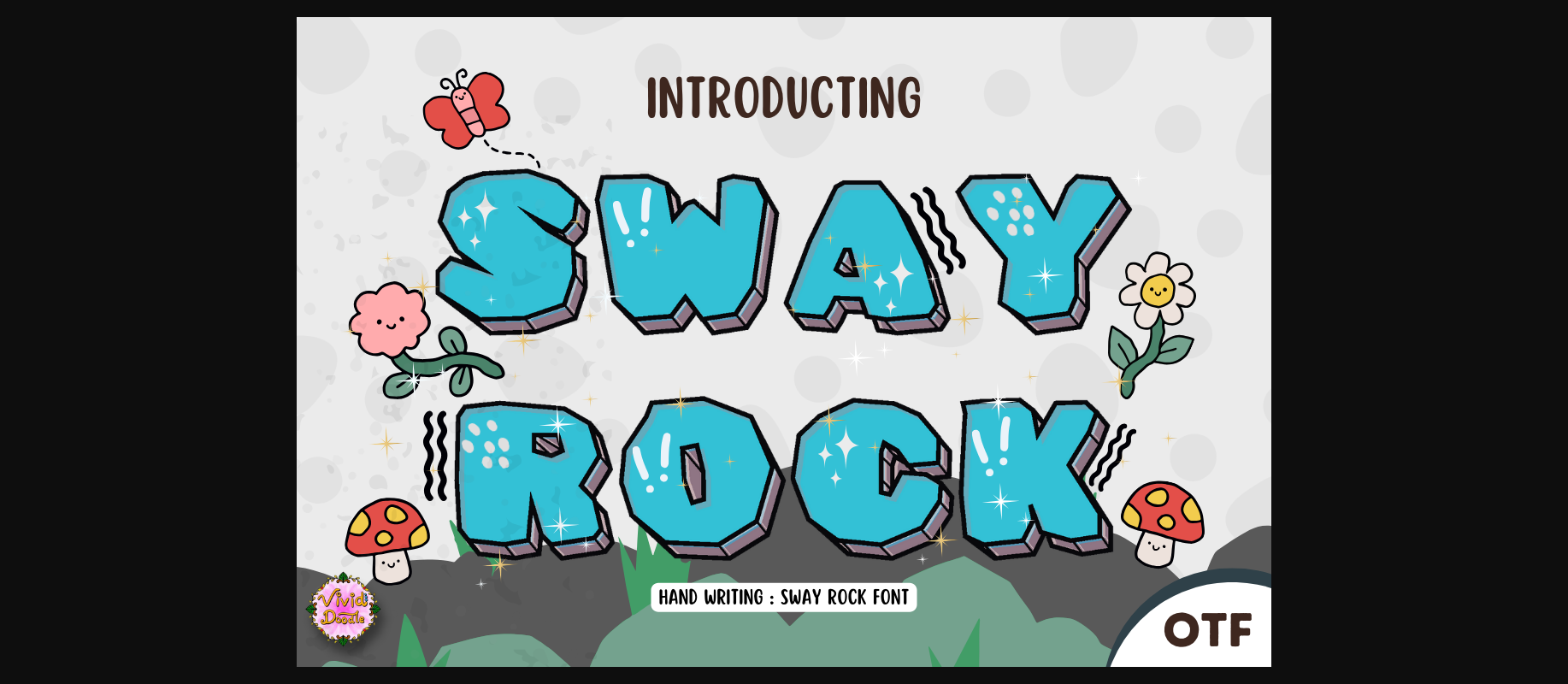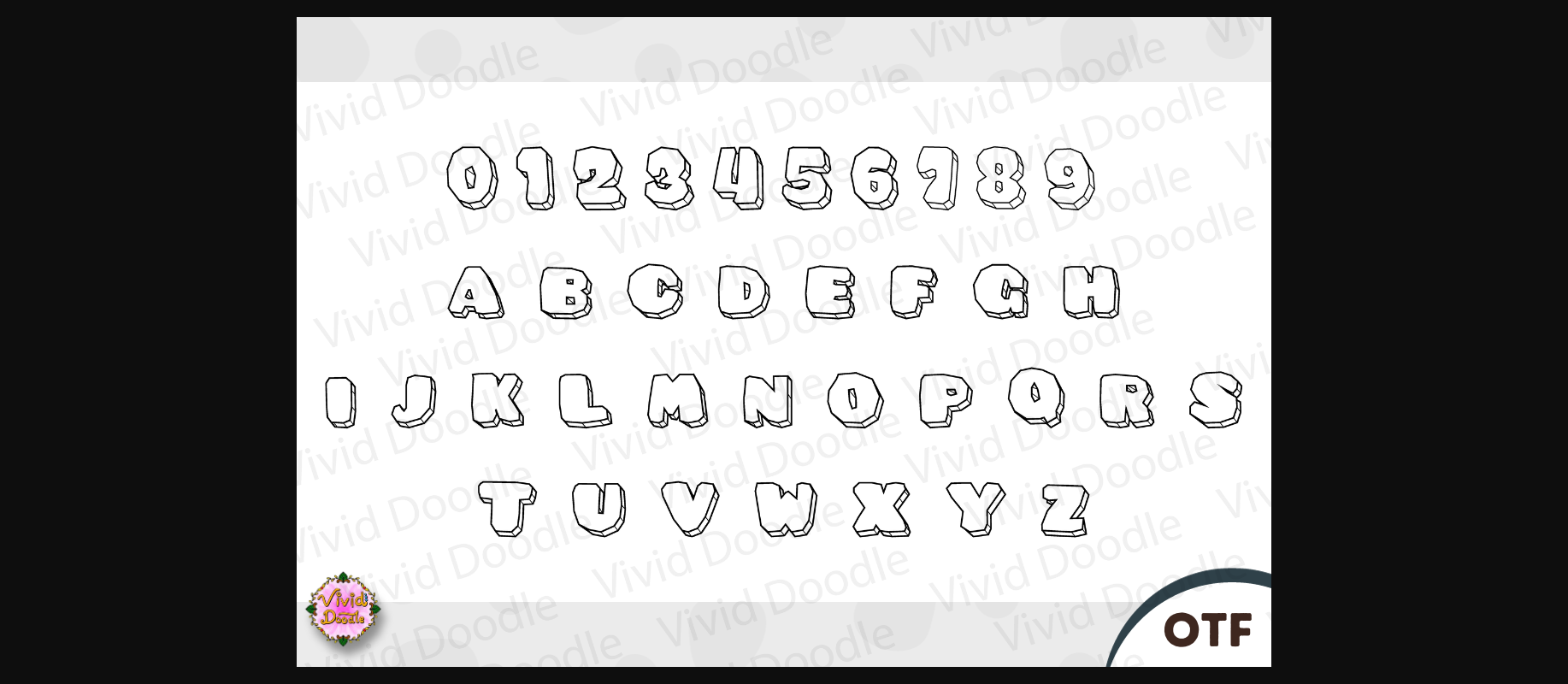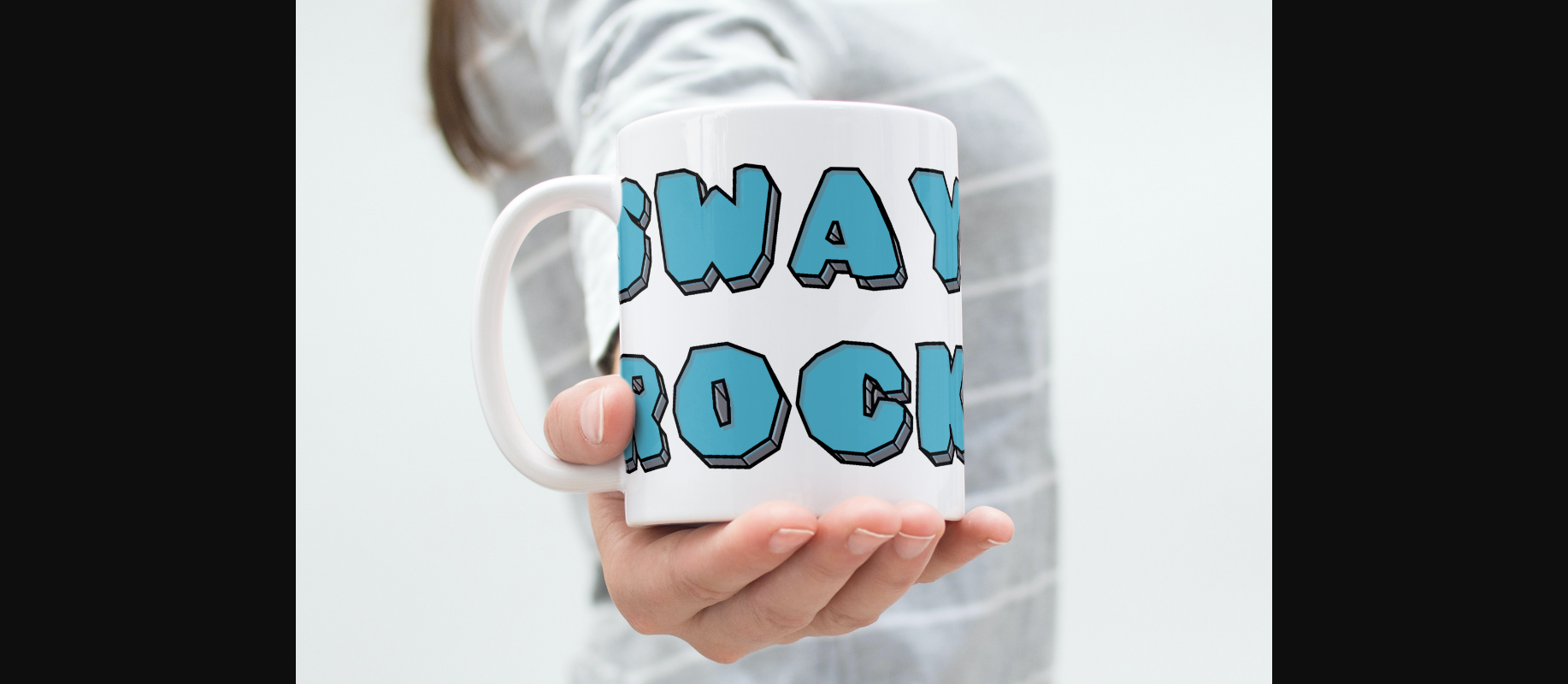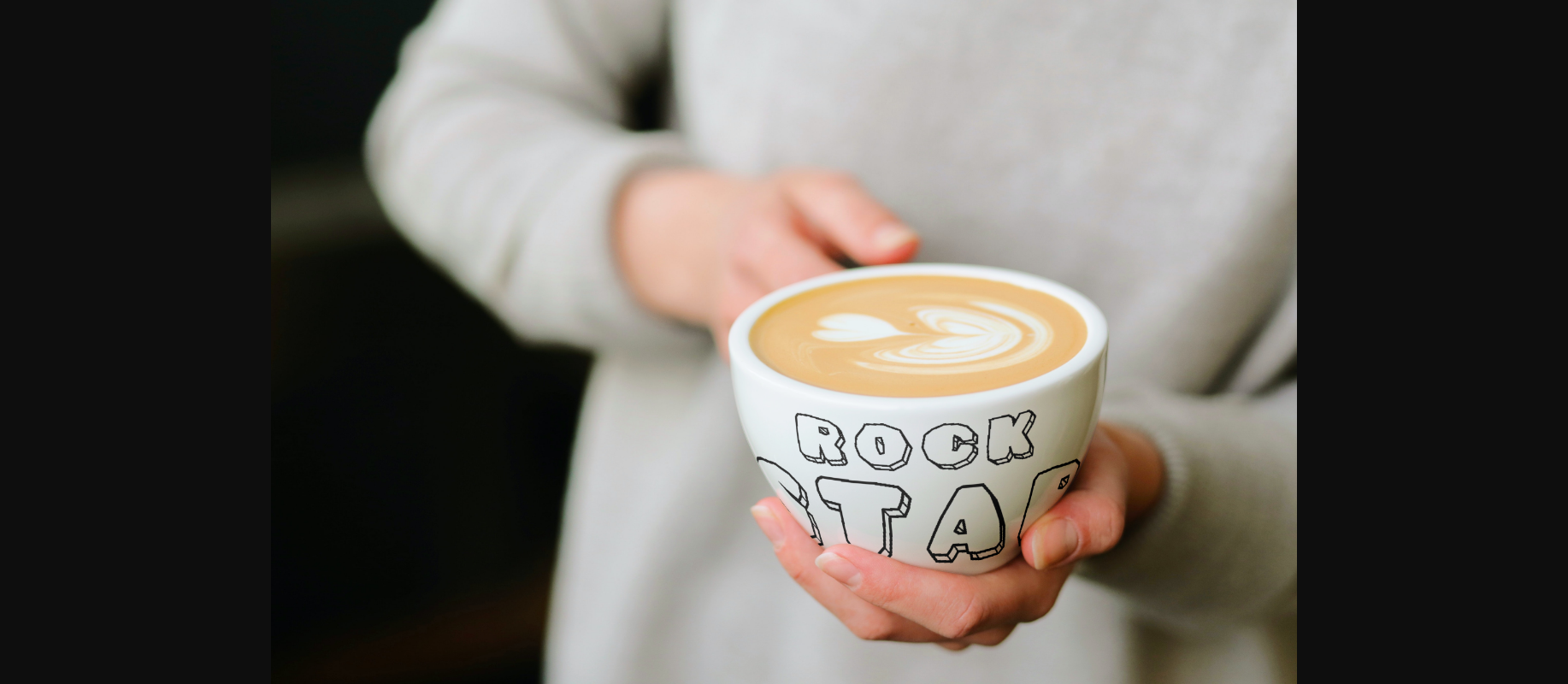
Sway Rock Font
About Sway Rock Font
Sway Rock is a bold display font that looks like a stack of sturdy rocks. Its letters are solid and robust, giving your words a strong and impactful presence. Perfect for headings and titles, Sway Rock adds a touch of rugged charm to your designs. Whether you’re crafting a poster or a logo, this font brings a sense of stability and boldness, making your message stand tall and firm. Rock your designs with Sway Rock, where each letter is a sturdy block of typographic strength.